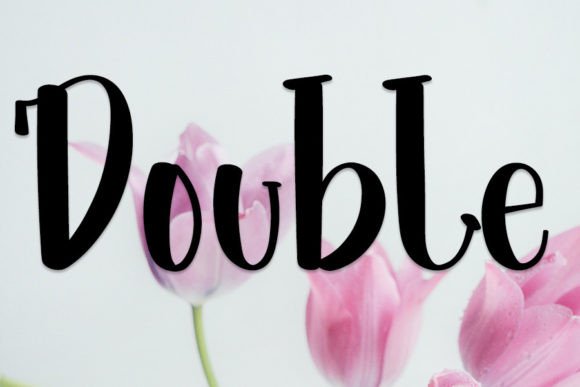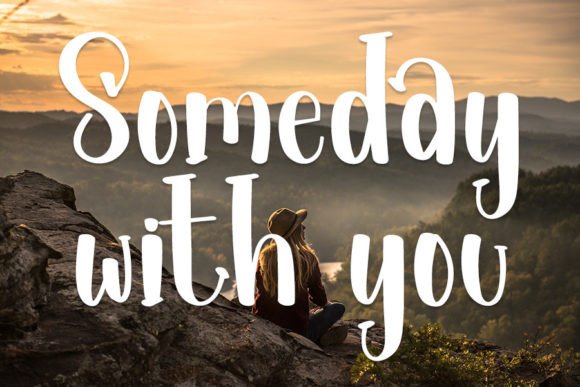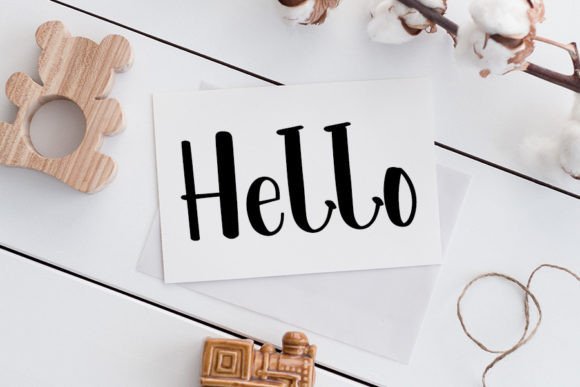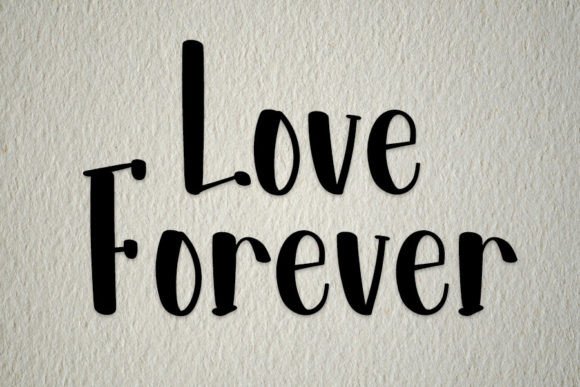
Mandala Plants Font
A Neat and Elegant Handwritten Font
The Mandala Plants Font is a neat and beautiful handwritten typeface that brings an elegant and timeless touch to any project. With its flowing lines and graceful design, this font is perfect for a wide range of creative applications. Whether you’re working on wedding invitations, logos, advertisements, or social media graphics, the Mandala Plants Font adds a unique personalized flair to your designs, making them stand out with style and sophistication.
Perfect for Wedding Invitations and Special Occasions
For wedding invitations and special occasion designs, the Mandala Plants Font offers an elegant and charming touch. Whether you’re designing save-the-dates, invitations, or thank you cards, this font ensures your materials have a timeless and personal feel. Its handwritten style adds a sense of warmth and luxury, making it a great fit for weddings and other celebrations.
Ideal for Logos and Branding
For logos and branding, the Mandala Plants Font provides a distinctive, memorable style. Whether you’re designing a creative business logo, personal brand, or Instagram branding, this font gives your brand a unique identity that reflects elegance and authenticity. Its beautiful handwritten design ensures your logo stands out while conveying a sophisticated, approachable vibe.
Great for Advertisements and Product Packaging
For advertisements and product packaging, the Mandala Plants Font provides a luxurious, charming touch. Whether you’re working on product labels, flyers, or advertising posters, this font elevates your designs with its clean, elegant strokes. It’s perfect for products that want to project a premium feel while maintaining a personal and authentic appearance.
Perfect for Photography and Watermarks
For photography and watermarks, the Mandala Plants Font works beautifully. Whether you’re adding a photographer’s signature or custom watermark to your images, this font ensures your text looks stylish and subtle while leaving a lasting impression. It’s also perfect for photo albums and portfolios, adding a refined and personalized touch to your work.
Elegant, Legible, and Versatile
Despite its handwritten design, the Mandala Plants Font remains legible and versatile. Its smooth, well-balanced characters ensure that your text is easy to read, even at smaller sizes or for longer passages. Whether you’re creating headlines, captions, or body text, this font strikes the perfect balance between beauty and clarity, making it ideal for a variety of creative applications.
Add Elegance and Style to Your Designs with Mandala Plants Font
If you’re looking for a neat, elegant, and handwritten font to elevate your designs, the Mandala Plants Font is the perfect choice. Whether you’re working on wedding invitations, logos, advertisements, or product packaging, this font brings a charming, timeless touch to your work. Let the Mandala Plants Font add sophistication and style to your creative projects and help them stand out with grace and elegance.